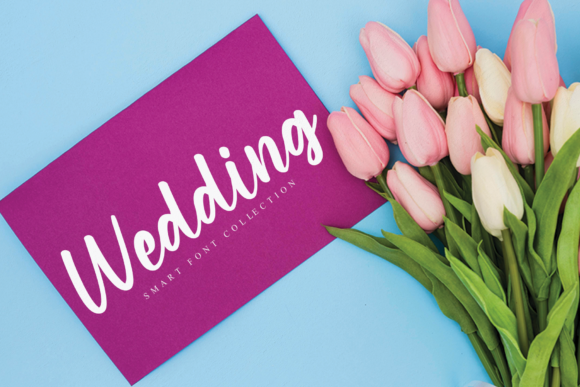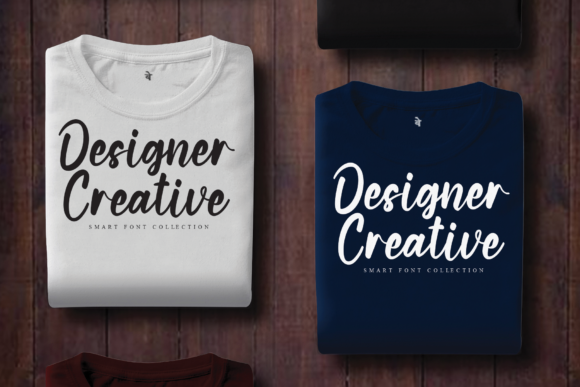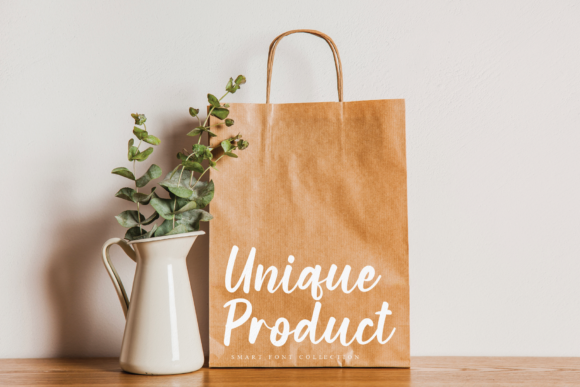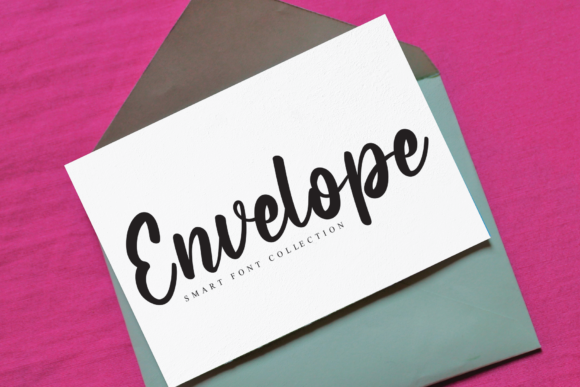
Introducing Blushing Font: The Epitome of Elegance and Versatility
Are you tired of using the same old fonts in your designs? Look no further! Blushing Font is here to revolutionize your creative projects with its delicate and elegant handwritten style. This stunning font is sure to capture your heart with its distinct and well-rounded letters, making it a masterpiece in the world of typography.
The Beauty of Blushing Font
Blushing Font boasts a unique and sophisticated design that exudes elegance and refinement. Its handwritten style gives it a personal touch, making it perfect for a wide range of applications, from wedding invitations and branding materials to social media graphics and digital art. The font’s well-rounded letters are carefully crafted to create a sense of fluidity and movement, adding a touch of whimsy to your designs.
What Makes Blushing Font So Special?
- Delicate and Elegant: Blushing Font’s refined design makes it perfect for projects that require a touch of sophistication and luxury.
- Handwritten Style: The font’s handwritten style gives it a personal and unique feel, setting it apart from more traditional fonts.
- Distinct and Well-Rounded Letters: The font’s carefully crafted letters are designed to create a sense of fluidity and movement, adding a touch of whimsy to your designs.
- Incredibly Versatile: Blushing Font can be used in a wide range of applications, from digital art and social media graphics to branding materials and wedding invitations.
- Wedding Invitations: Add a touch of elegance and romance to your wedding invitations with Blushing Font.
- Branding Materials: Use Blushing Font to create stunning branding materials, such as logos, business cards, and letterheads.
- Social Media Graphics: Add a touch of whimsy and personality to your social media graphics with Blushing Font.
- Digital Art: Use Blushing Font to create beautiful digital art pieces, such as quotes, posters, and illustrations.
- Experiment with Different Colors: Blushing Font looks stunning in a variety of colors, so don’t be afraid to experiment and find the perfect hue for your design.
- Play with Font Sizes: Blushing Font can be used in a range of font sizes, from large and bold to small and delicate.
- Add Decorative Elements: Consider adding decorative elements, such as flowers or illustrations, to enhance your design and make it more visually appealing.
In conclusion, Blushing Font is a stunning and versatile handwritten font that is sure to capture your heart. Its delicate and elegant design makes it perfect for a wide range of applications, from wedding invitations and branding materials to social media graphics and digital art. With its distinct and well-rounded letters, Blushing Font is a masterpiece in the world of typography. So why wait? Fall in love with Blushing Font and use it to create spectacular designs that will leave a lasting impression!